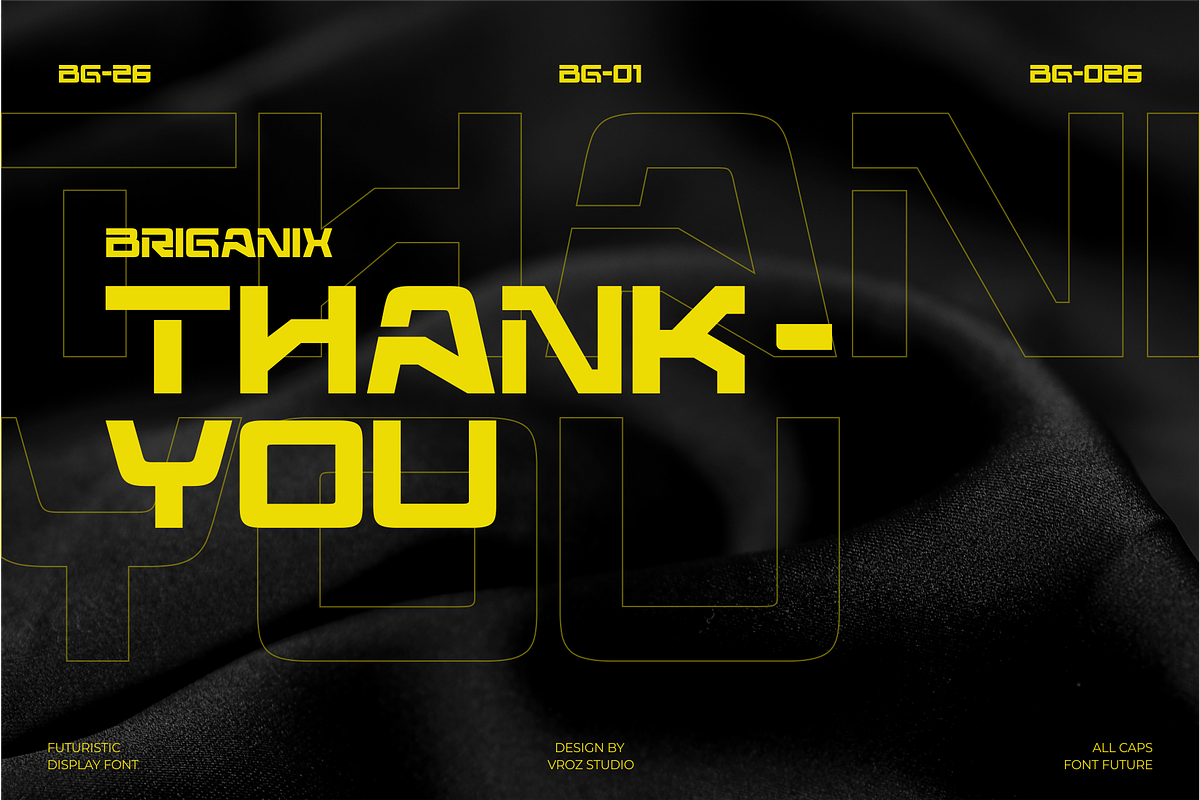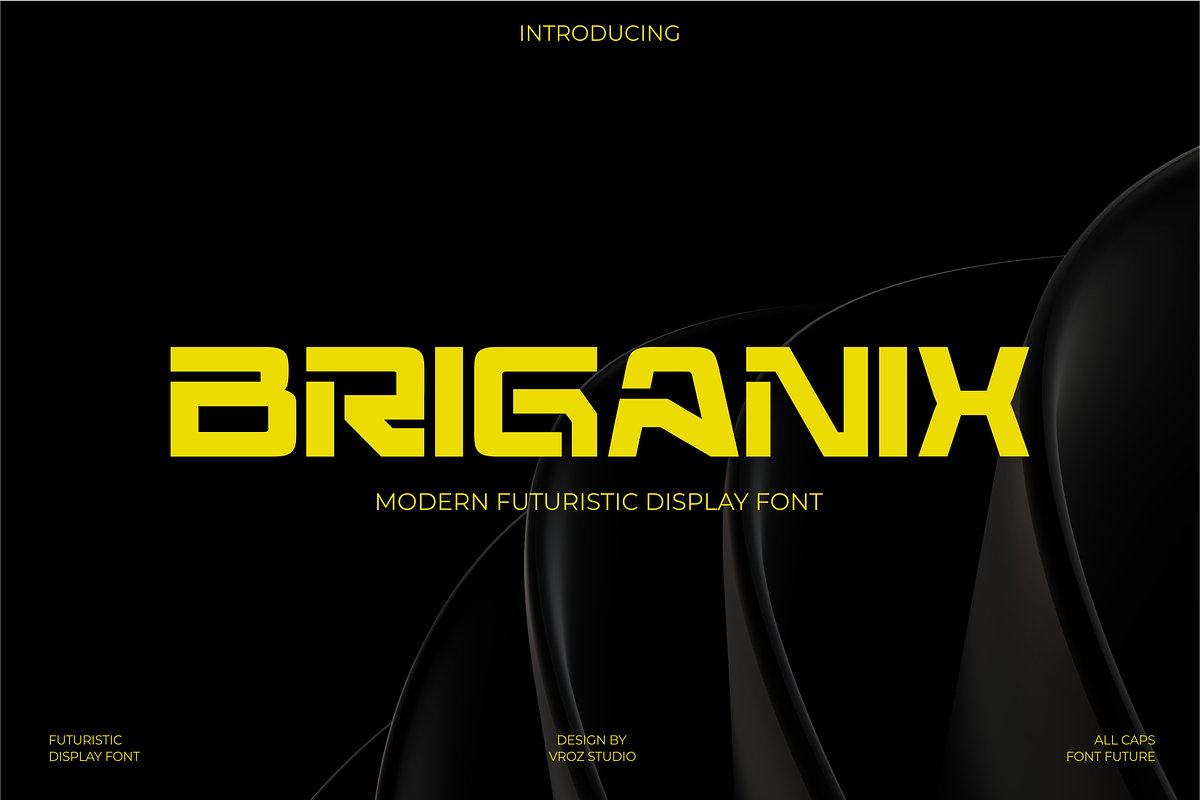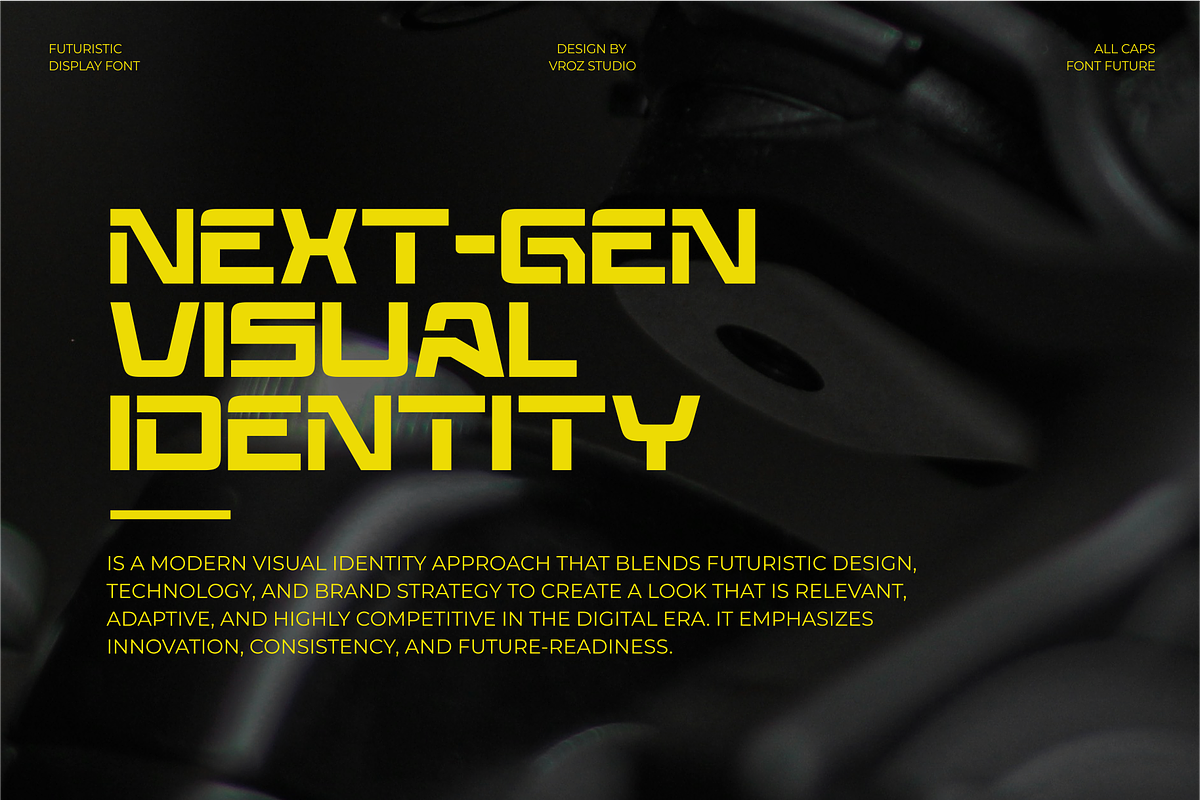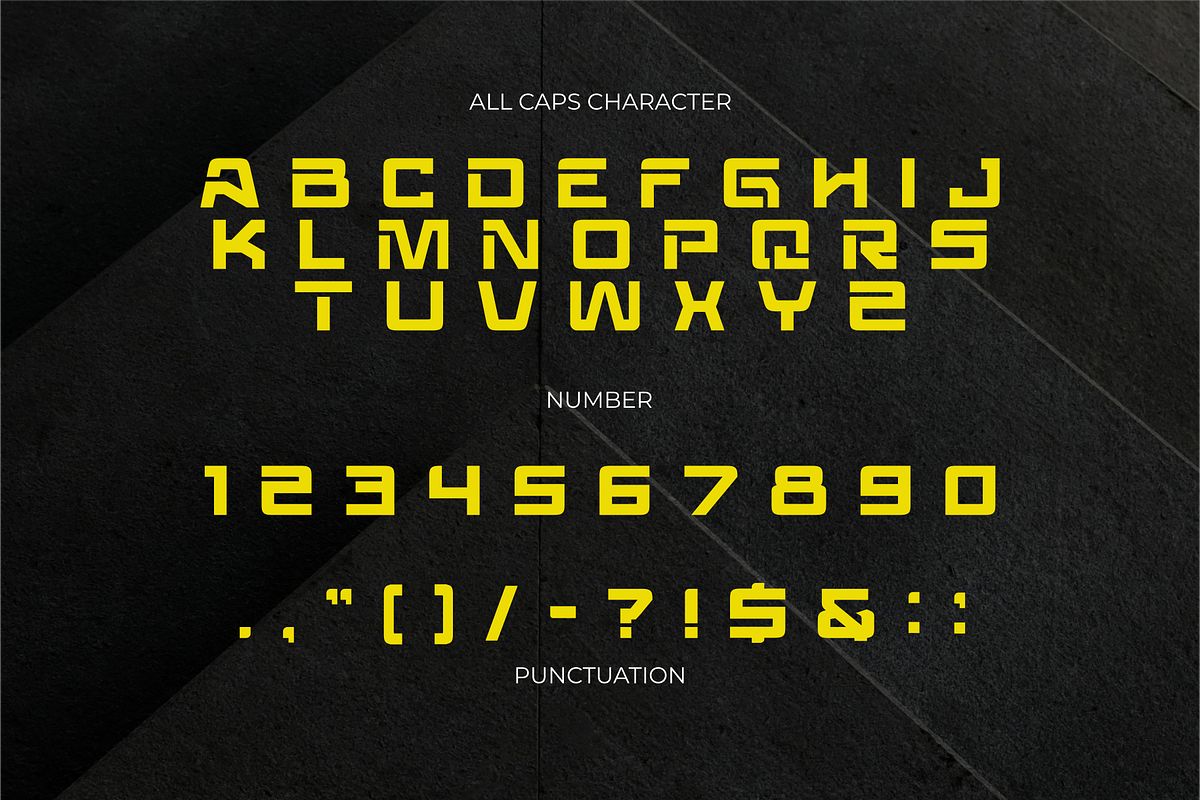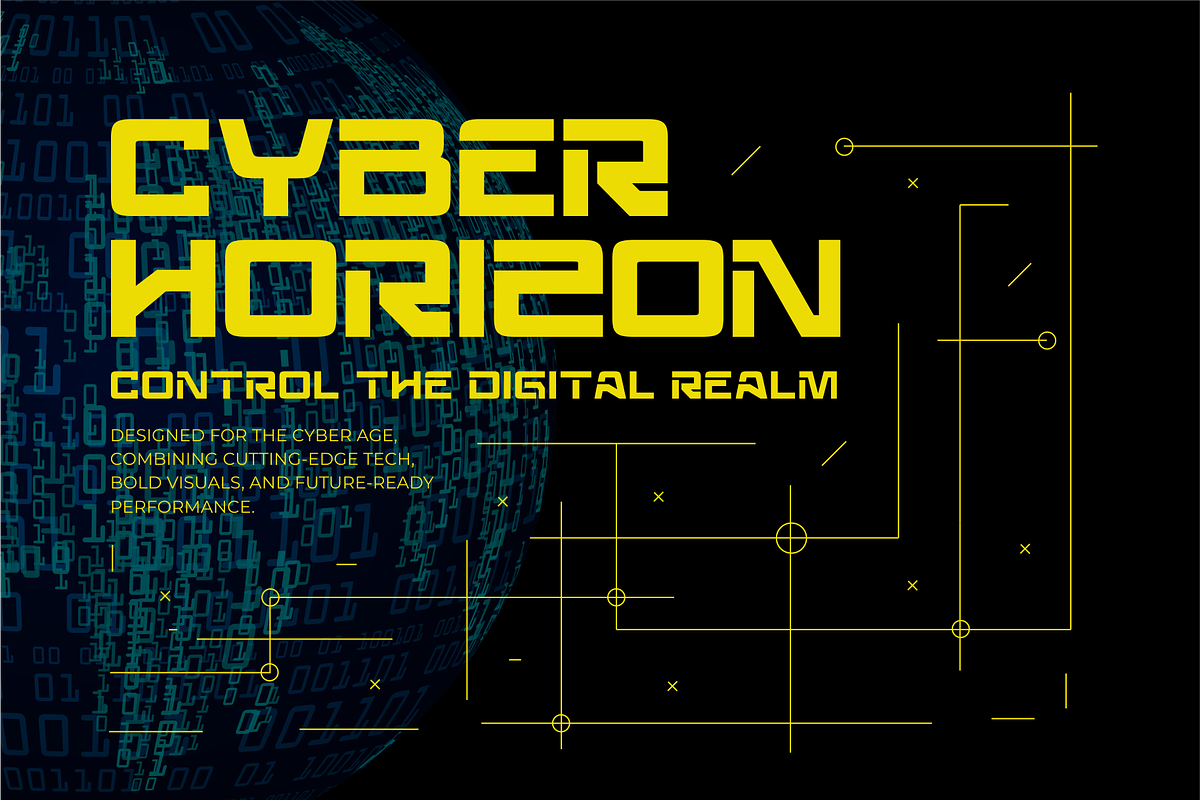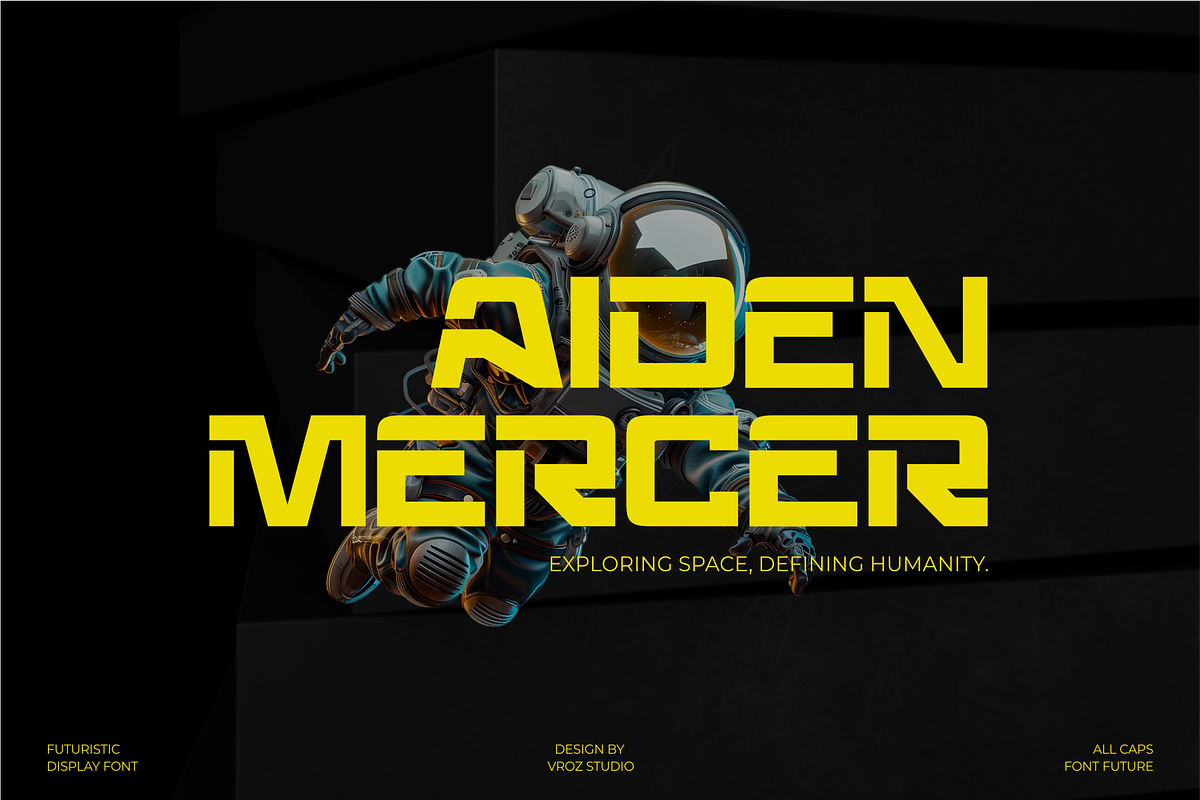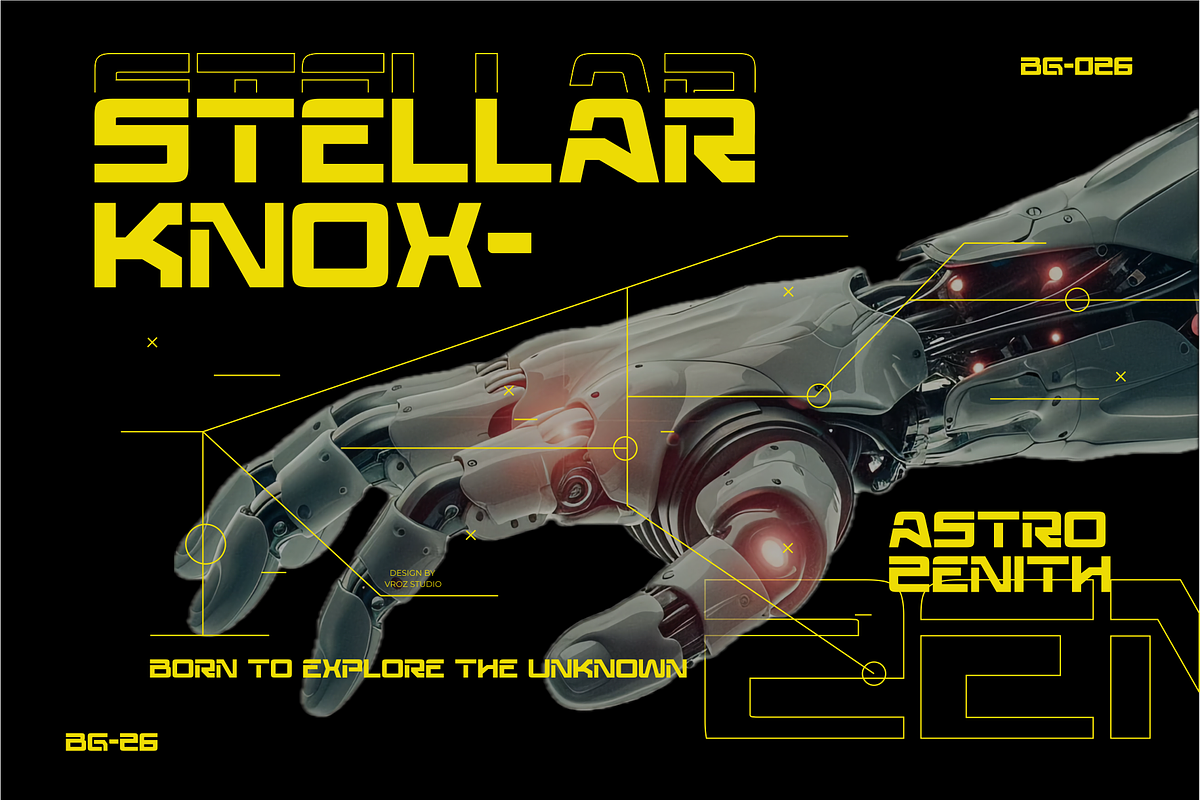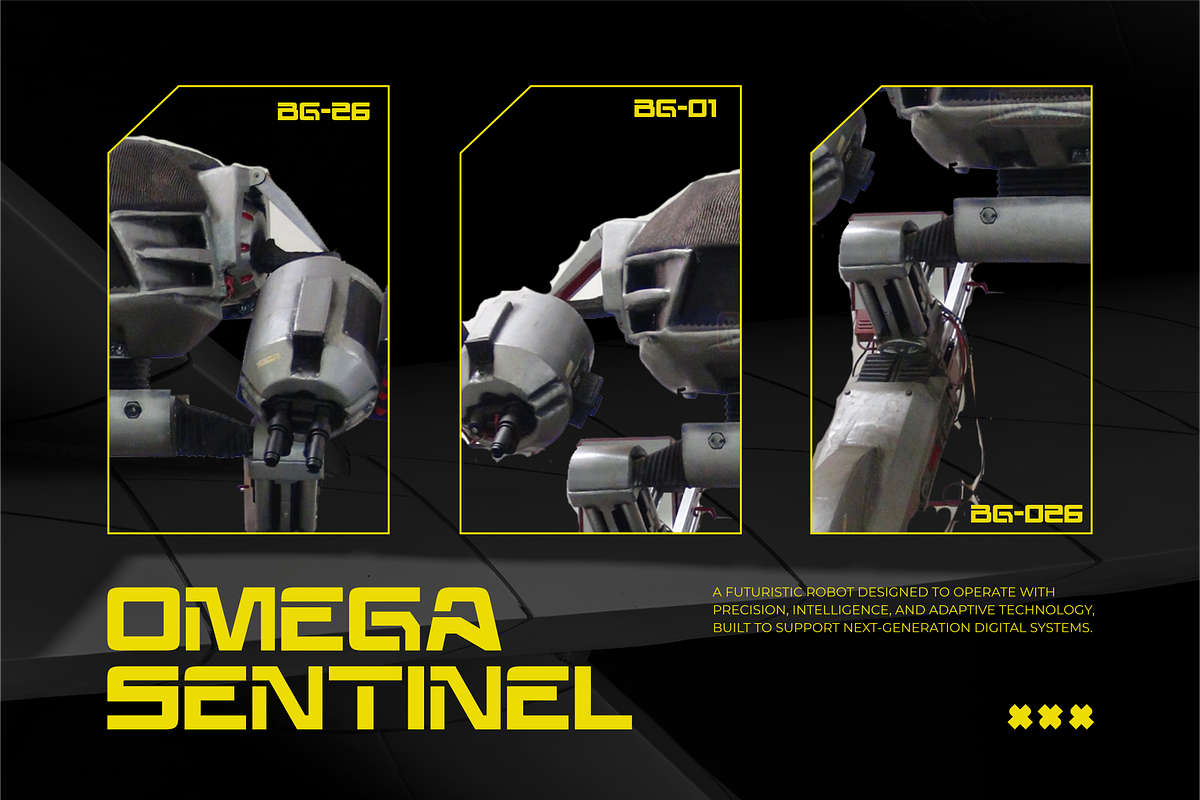
Briganix – Futuristic Modern font
Briganix is a futuristic modern sans serif font crafted for clarity, precision, and contemporary design needs. With its geometric structure, clean cuts, and smooth transitions, Briganix delivers a confident and forward-looking visual style suitable for modern digital environments.
Briganix works seamlessly across a wide range of creative projects, including branding, technology-related designs, gaming visuals, posters, UI/UX layouts, and web interfaces. Its strong yet minimalist character allows the font to stand out without overpowering the overall design.
This typeface pairs well with other modern sans serif or classic serif fonts, giving designers flexibility when building clean and professional layouts. Briganix is a reliable choice for projects that require a futuristic tone with a modern and versatile foundation.
- Futuristic modern sans serif style
- Clean geometric letterforms
- Consistent stroke weight
- High readability at small and large sizes
- Suitable for tech, digital, and gaming projects
- Ideal for branding, headlines, and UI design
Briganix brings a futuristic modern identity that enhances visual communication with precision, simplicity, and confidence.